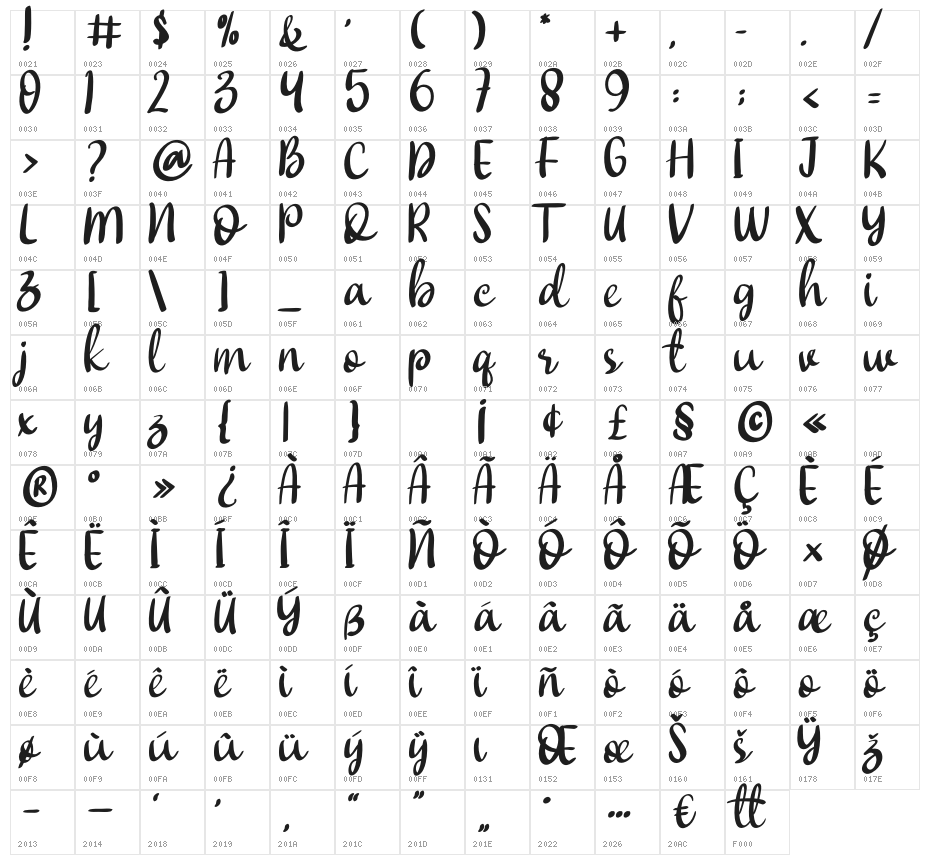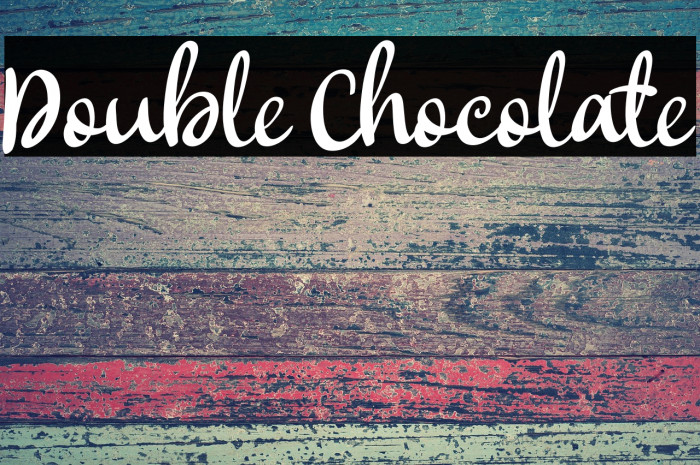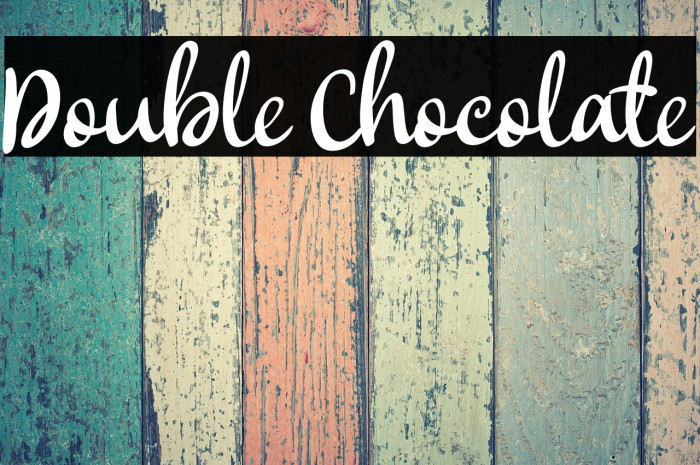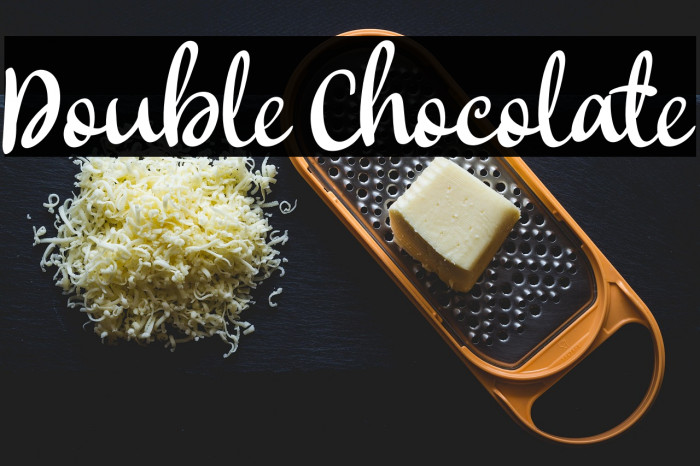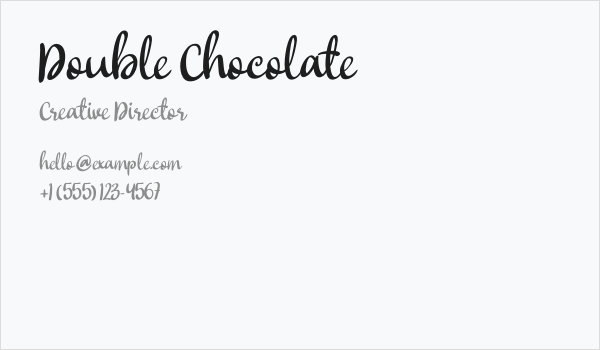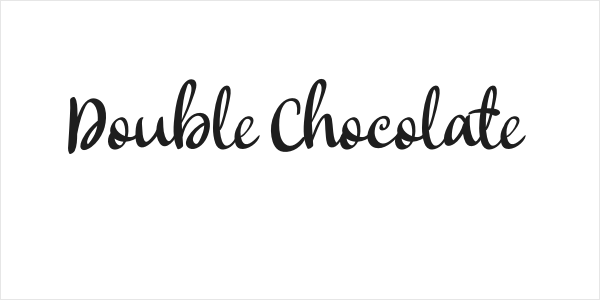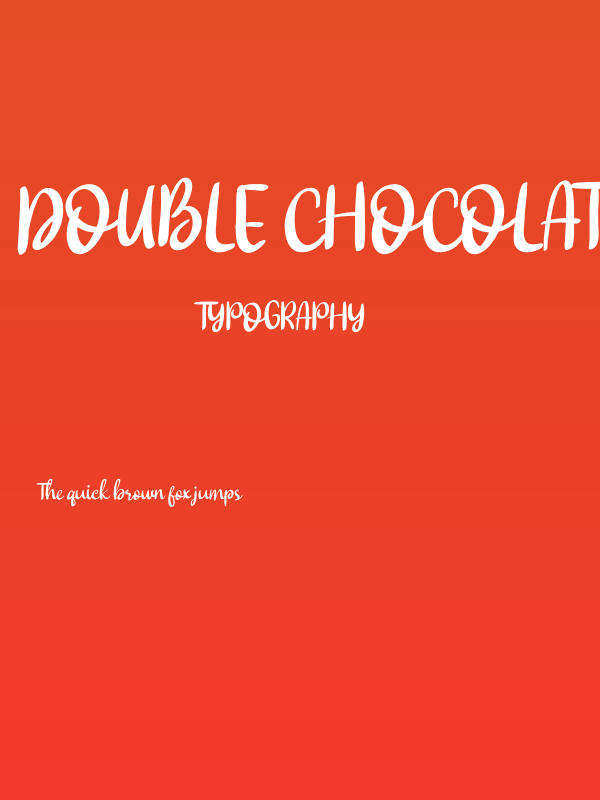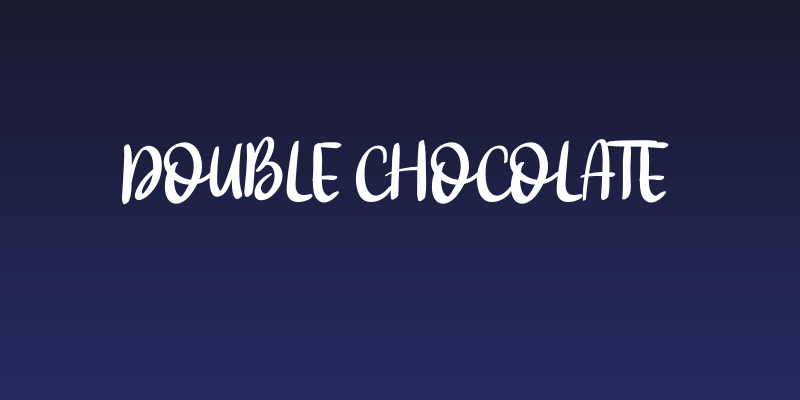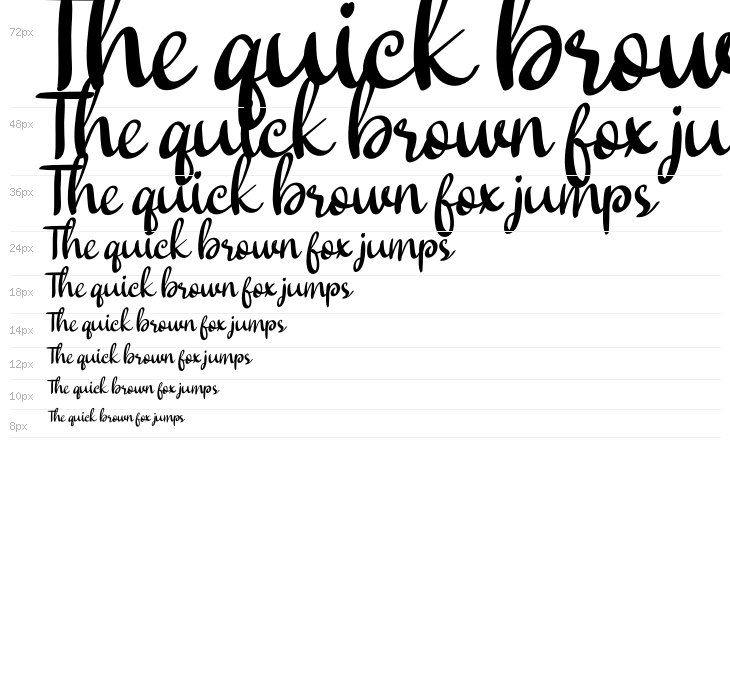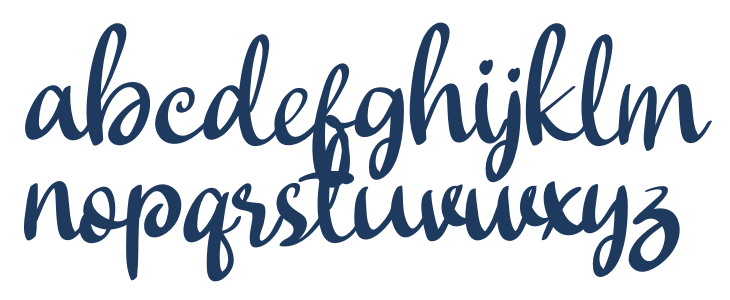
Double Chocolate Font
Double Chocolate Description
This font features a bold and expressive handwritten style, characterized by its fluid and dynamic strokes. The uppercase letters are tall and slightly narrow, with a playful yet elegant flair. The lowercase letters maintain a consistent flow, enhancing readability while preserving the artistic touch. Numbers are bold and clear, matching the overall aesthetic. Special characters are creatively designed, adding to the font's versatility. The overall appearance is lively and modern, making it suitable for various creative applications.